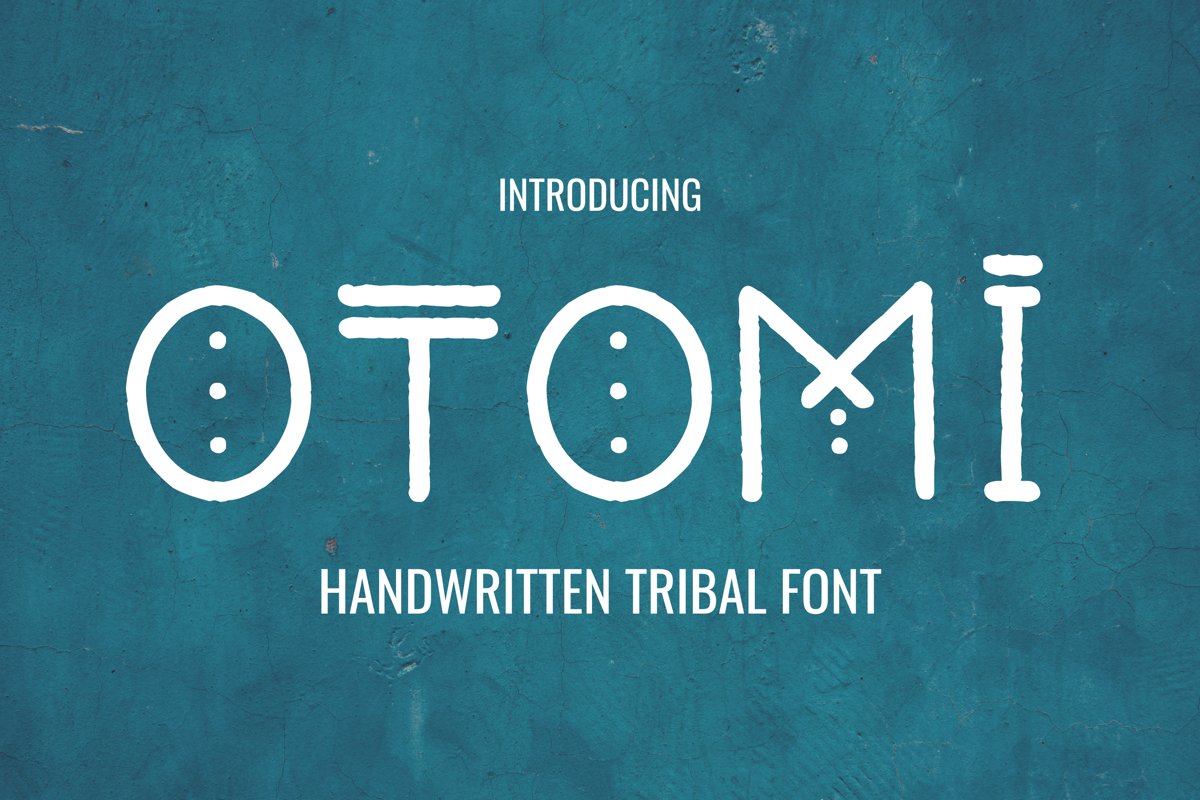
Otomi - Tribal Style Font
OTOMI
This is a handwritten geometric font which includes English and Cyrillic characters (uppercase and lowercase), numbers and punctuation symbols.